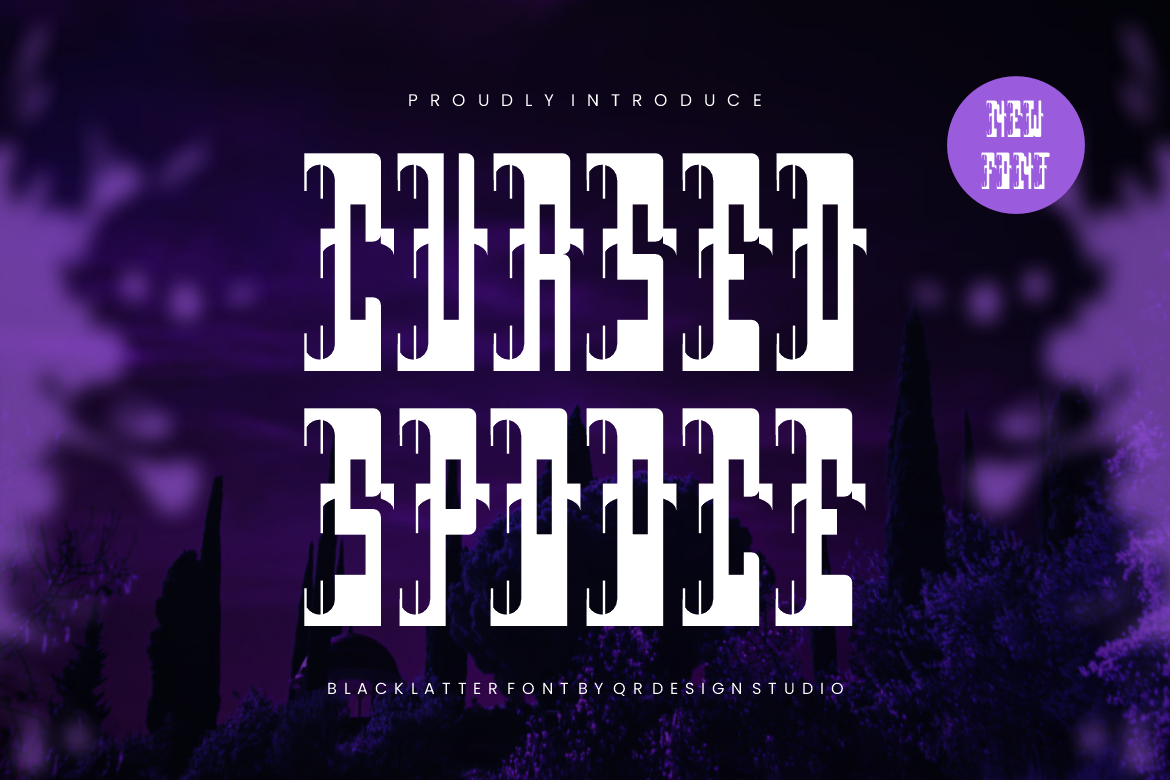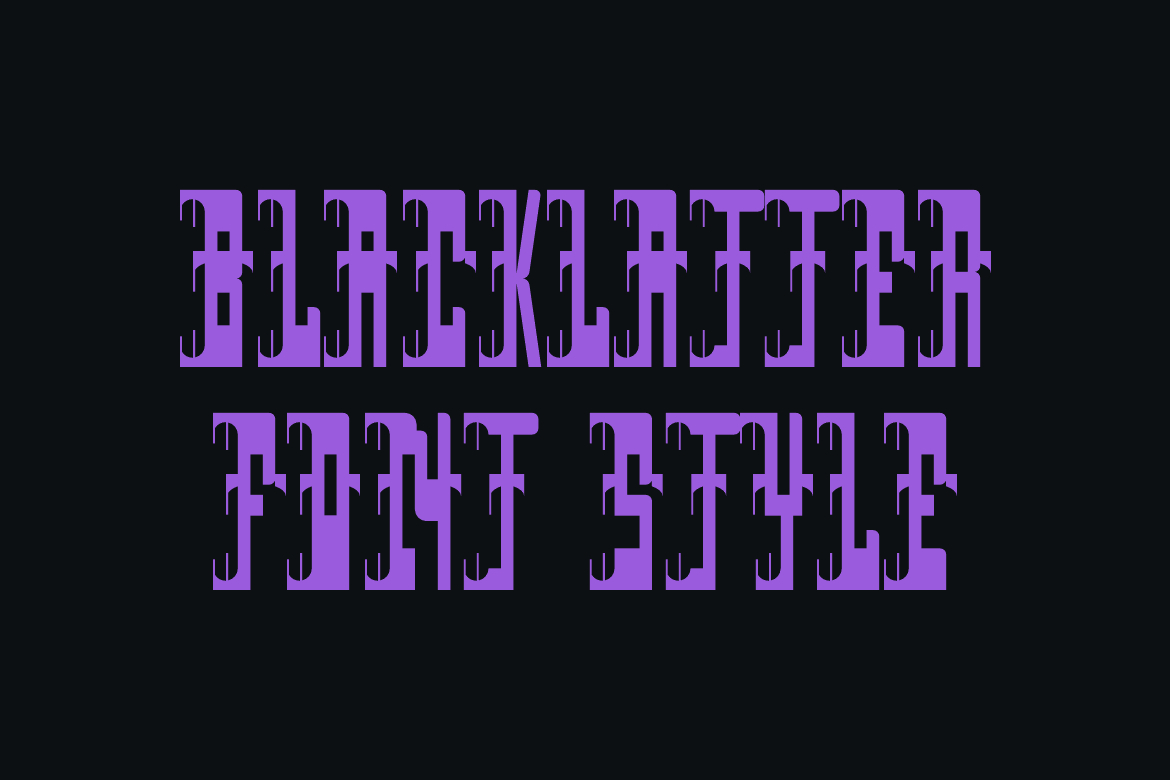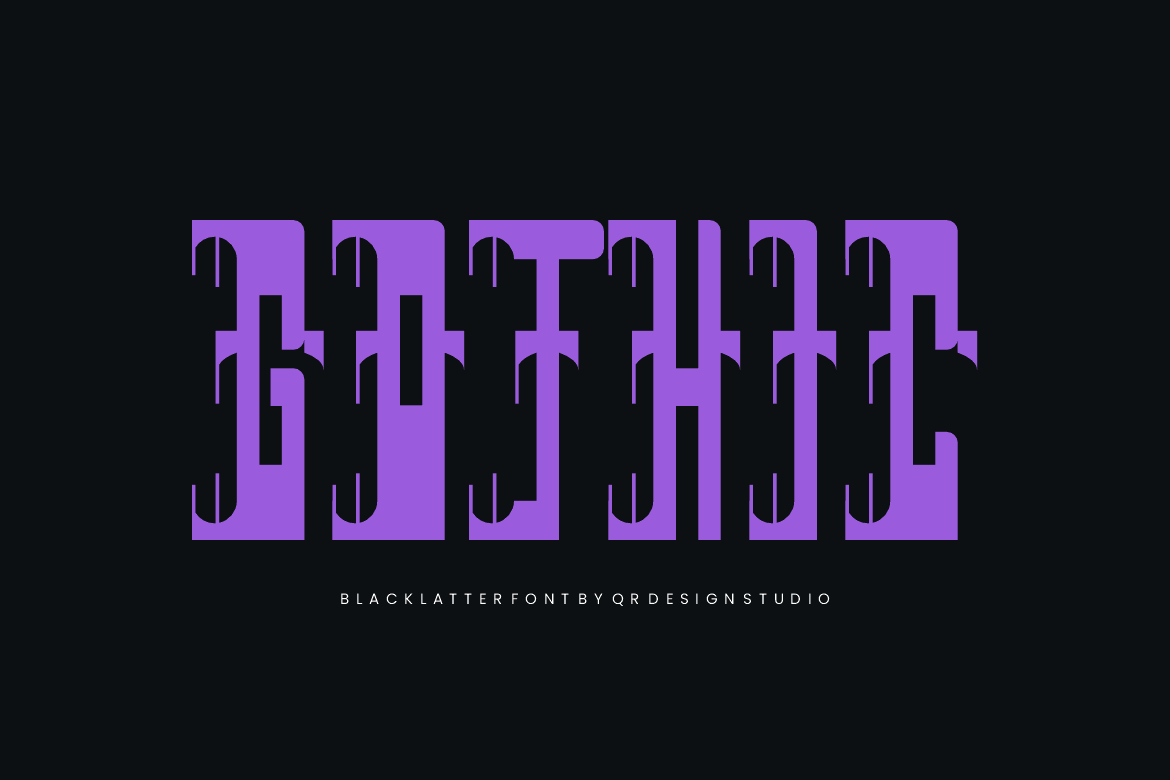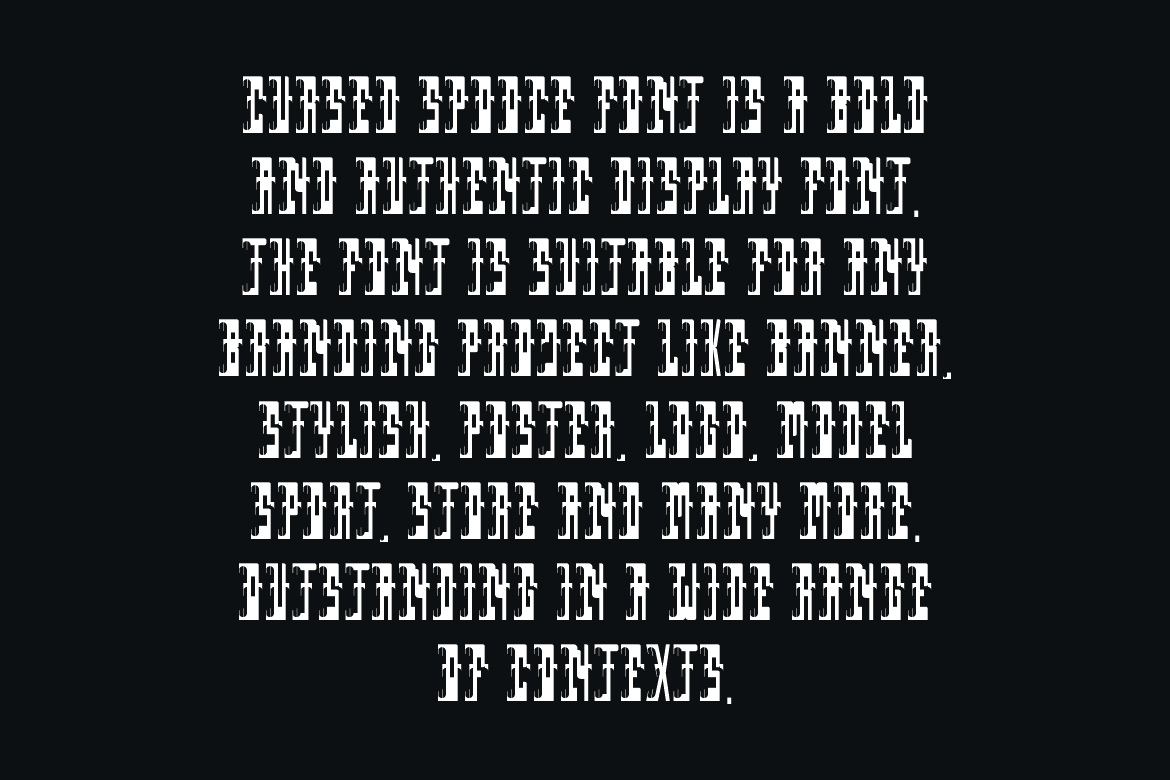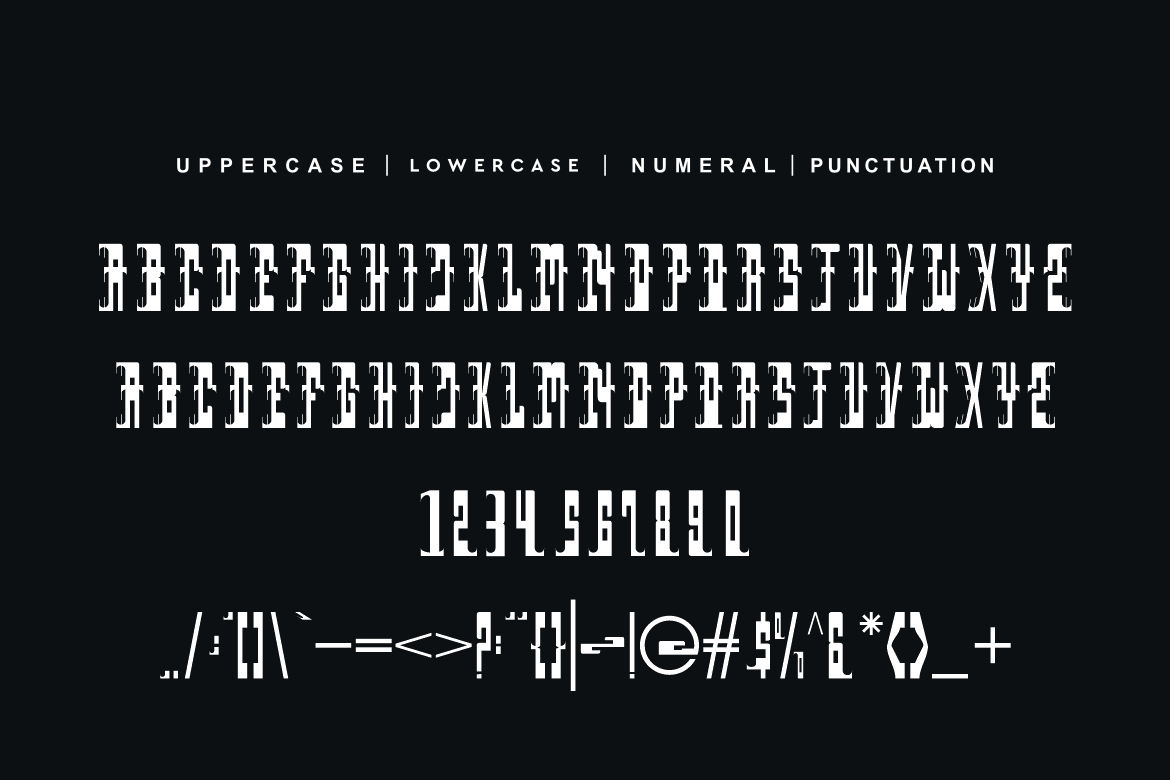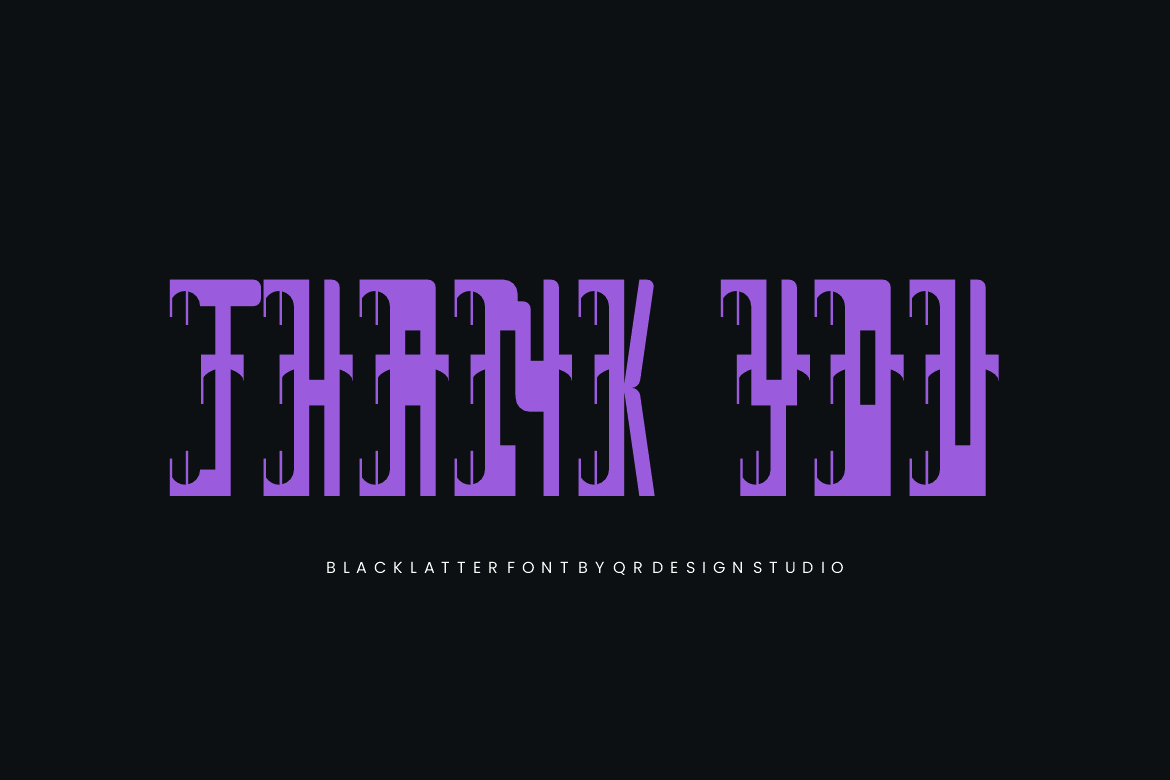
Cursed Spooce Font
About Cursed Spooce Font
Gaming – Sports Font is a bold and authentic display font.
The font is suitable for any branding project like logo, sport, and many more.